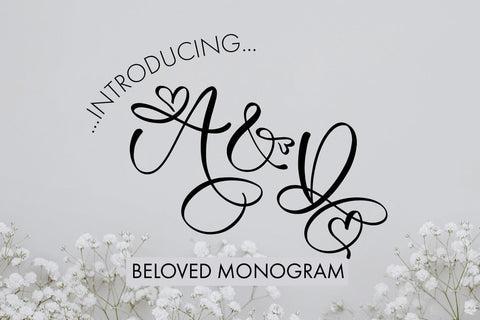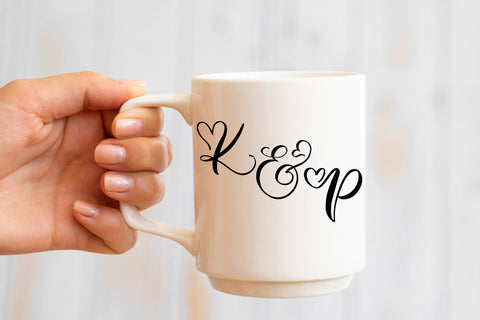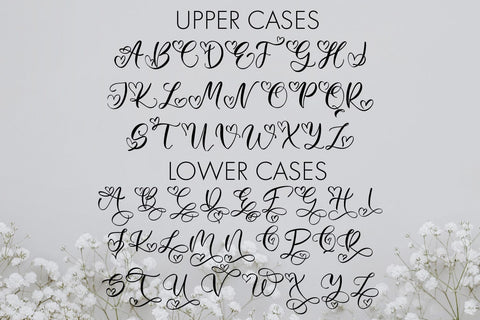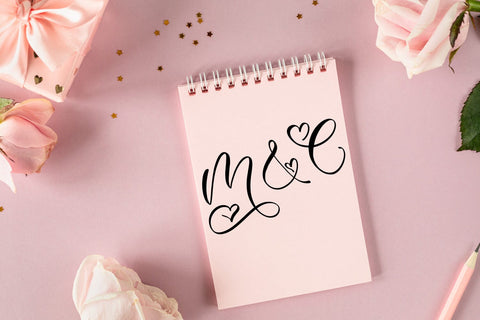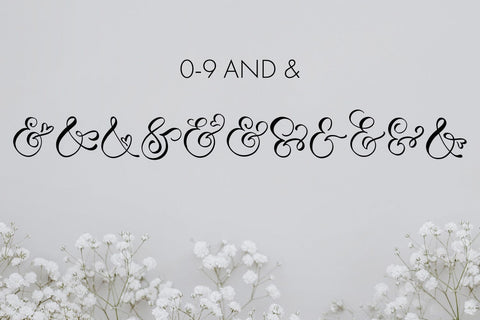
Beloved Monogram Font
Introducing "Beloved Monogram," a captivating handwritten monogram font that brings a touch of elegance to personalized designs. Crafted with meticulous care, this beautiful calligraphy style monogram font features graceful letters adorned with intricate swashes. The unique charm lies in heart-shaped swashes, adding a romantic flair to your monograms. With stylistic alternates for the AND sign, "Beloved Monogram" allows you to create custom designs that celebrate love, unity, and cherished moments. Make your mark with this enchanting font and let your monograms be a testament to love's enduring beauty.
- Beloved Monogram Font - Comes with Uppercase A-Z and lowercase a-z letters, 0-9 numbers, stylistic alternates, limited punctuation and supports Western European Languages